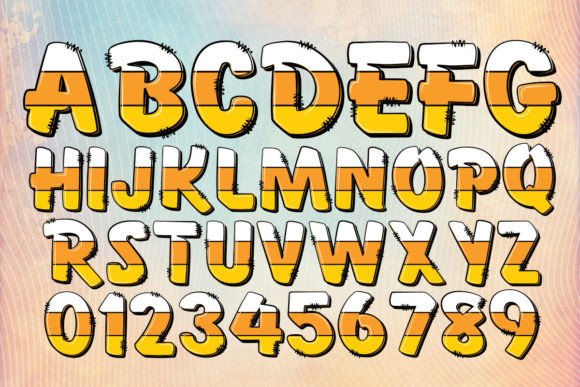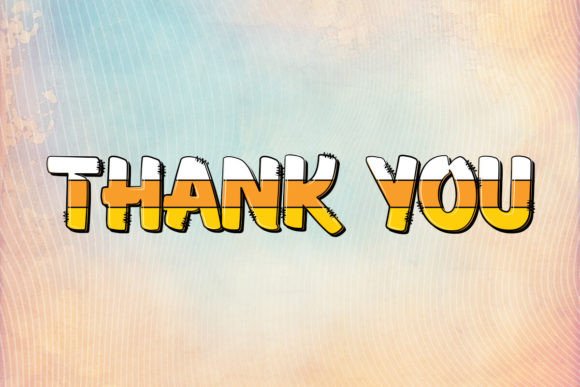
Unleash the Magic of Halloween with the Enchanting Pumpkin Candy Font
As the spookiest and most thrilling time of the year approaches, designers and crafters are on the lookout for creative elements that can add a touch of magic to their projects. If you’re one of them, you’re in luck! Introducing the Halloween Pumpkin Candy Font, a charming and meticulously crafted typeface that embodies the spirit of fall and Halloween festivities. This delightful font is perfect for those who appreciate cuteness and charm, making it an excellent addition to any creative project.
A Beautiful Blend of Aesthetics and Halloween Spirit
The Halloween Pumpkin Candy Font boasts a distinct style that beautifully combines lovely aesthetics with Halloween-themed artistry. Its unique design enhances any project, reflecting not only the spooky season but also the loveliness of autumn. Whether you’re working on a project for “Hallothanksmas” or any other Halloween celebration, this font is sure to add a touch of excitement and fun.
Tips for Using the Halloween Pumpkin Candy Font
The Halloween Pumpkin Candy Font offers endless creative possibilities for designers and crafters. You can use it to create:
- Halloween-themed party invitations and decorations
- Customized candy and treat labels
- Spooky and fun t-shirts, mugs, and other merchandise
- Autumn-inspired craft projects, such as pumpkin decorations and fall-themed signs
Why Choose the Halloween Pumpkin Candy Font?
With so many fonts available, why choose the Halloween Pumpkin Candy Font? Here are just a few reasons:
- Unique and charming design that captures the spirit of Halloween and autumn
- Easy to use and customize, even for those new to fonts
- Perfect for a wide range of creative projects, from party decorations to customized merchandise
Immerse yourself in the magic of Halloween with the charming Halloween Pumpkin Candy Font. With its unique blend of aesthetics and Halloween spirit, this font is sure to become a favorite among designers and crafters. Whether you’re creating party decorations, customized merchandise, or autumn-inspired craft projects, this font is the perfect addition to your creative arsenal. So why wait? Tap into the fun and excitement of Halloween with the wonderfully unique Halloween Pumpkin Candy Font.